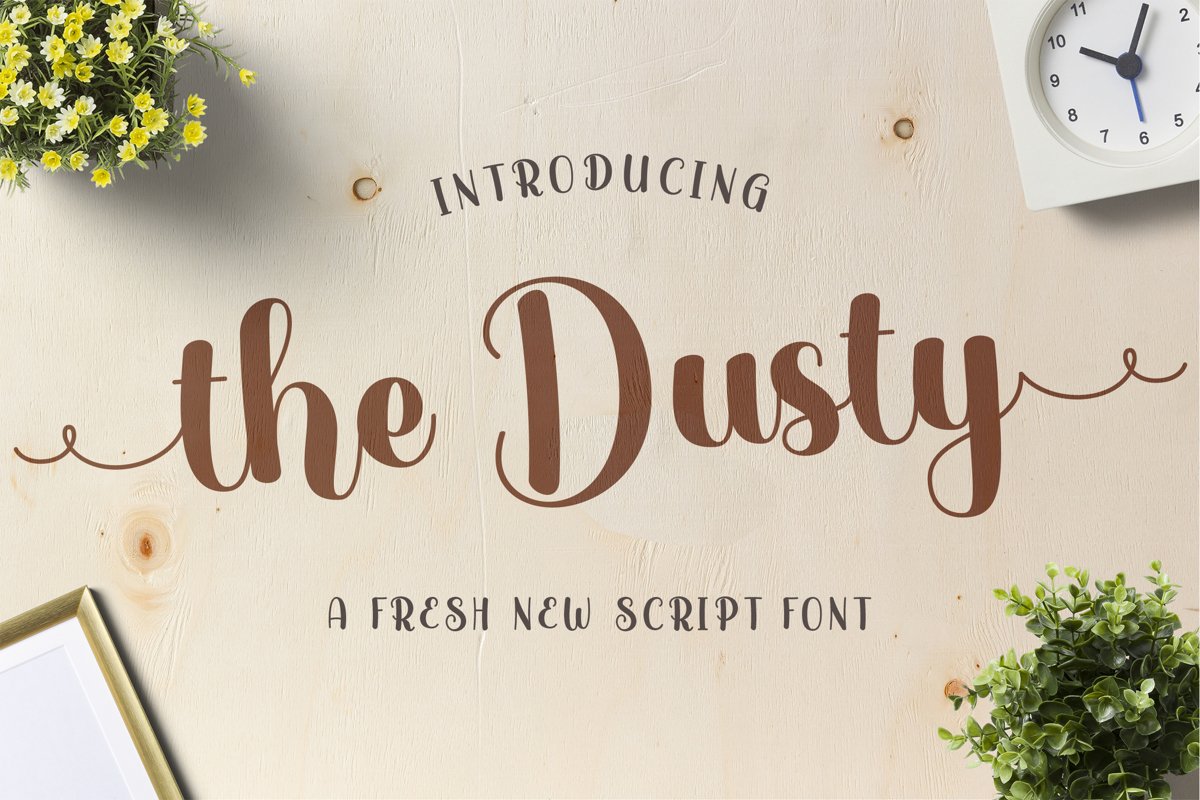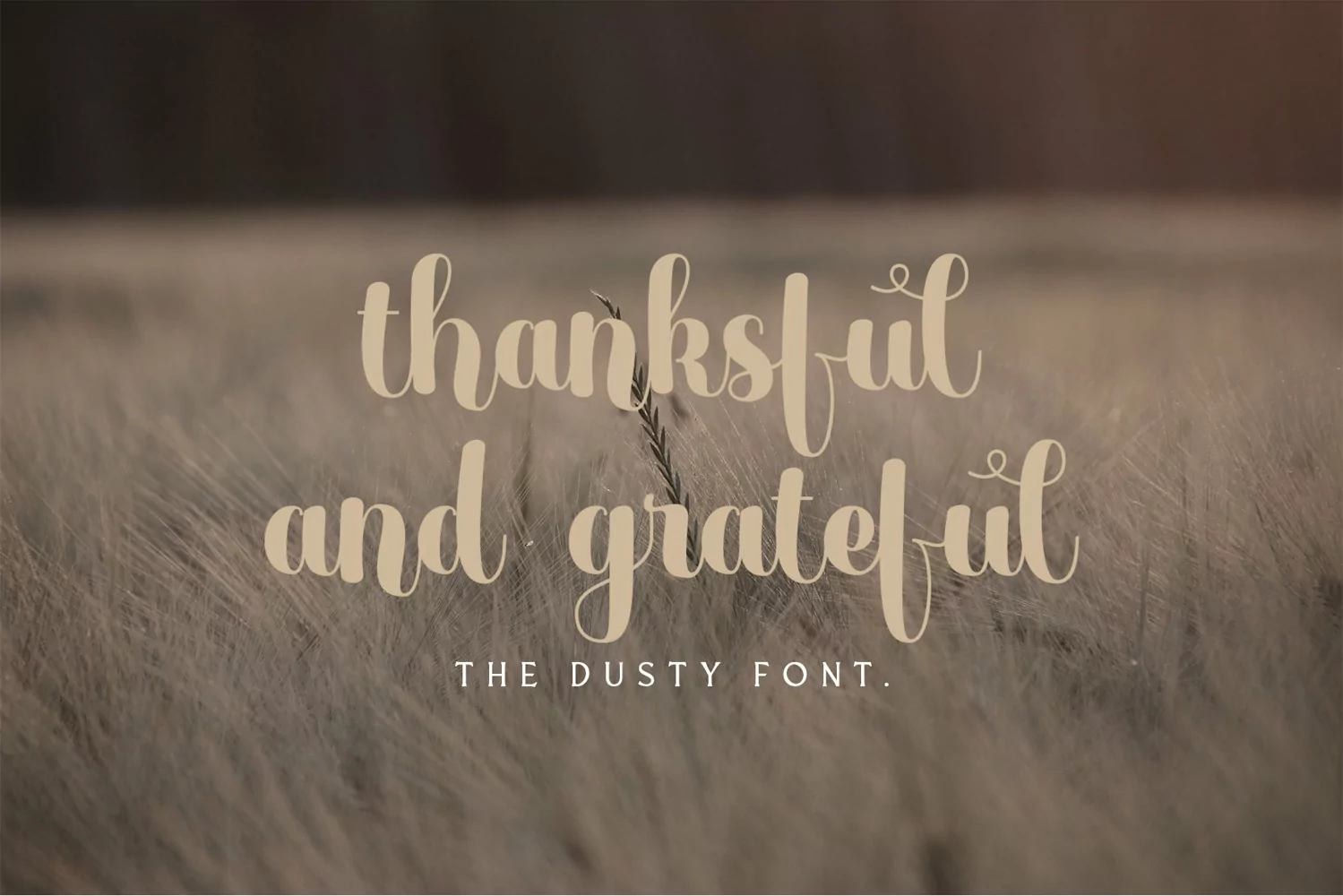
The Dust is a Script typeface. Perfect for display, quotes, craft needs, logo, logotype, hand crafting needs, wedding needs, florist needs, emblem, business card merchandise and many more.